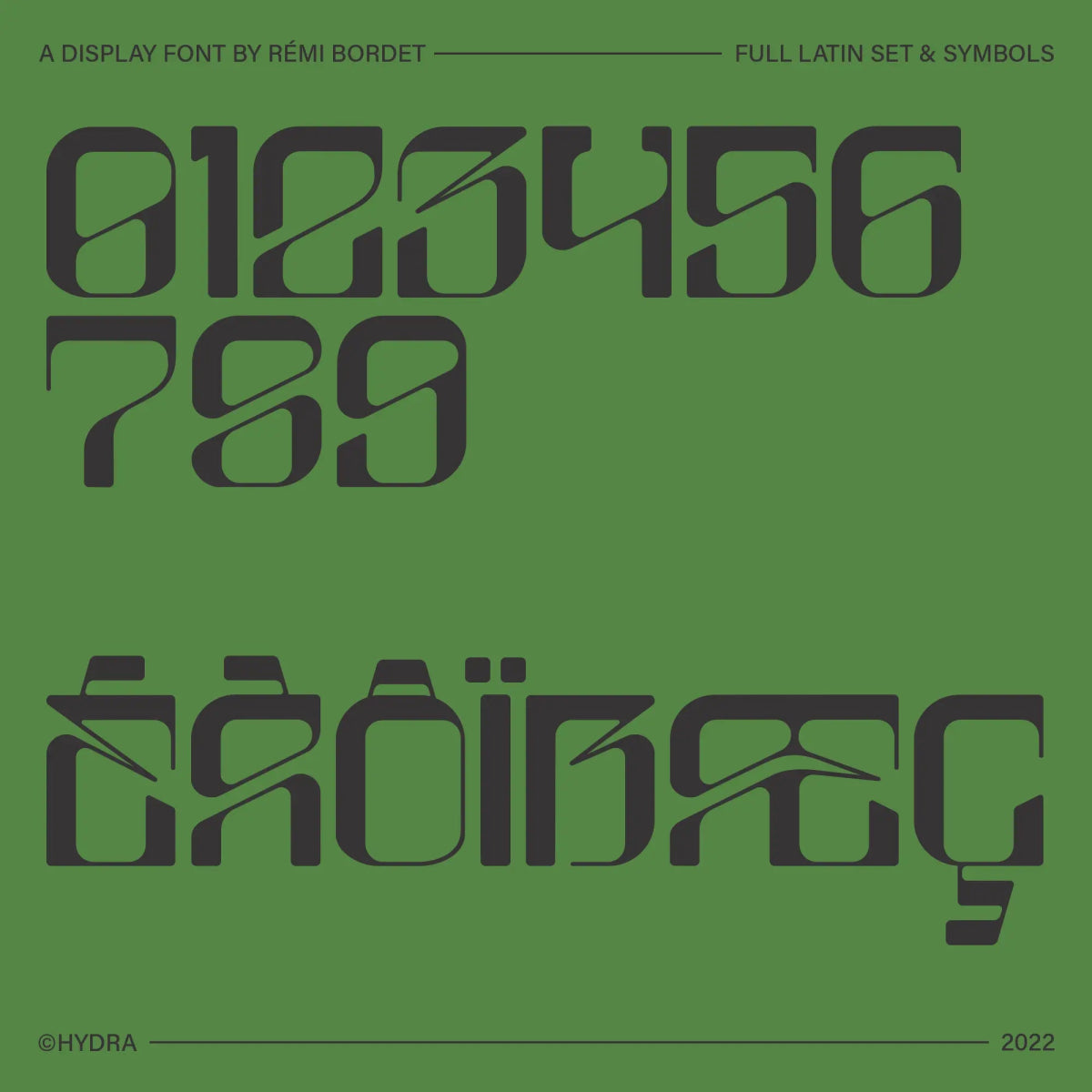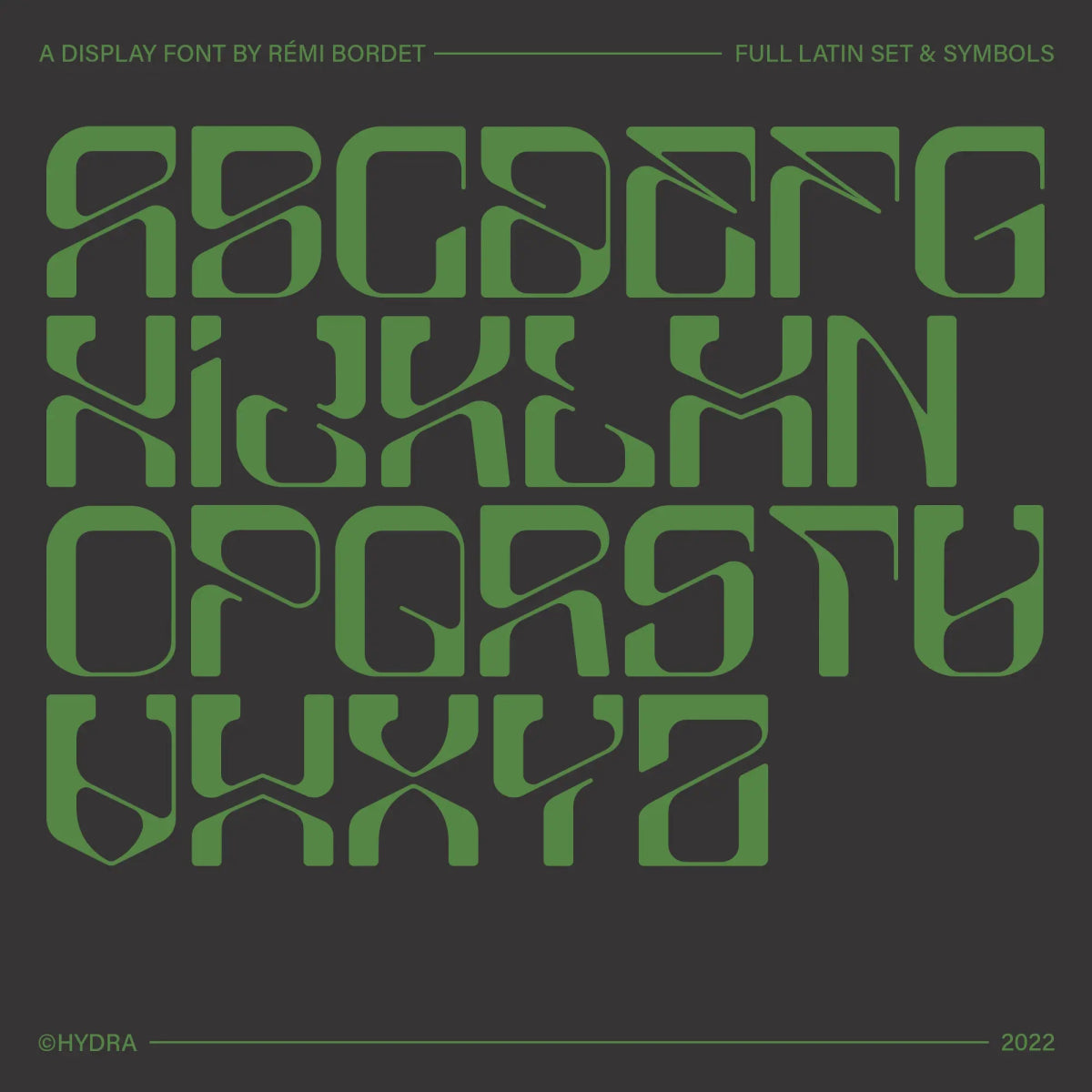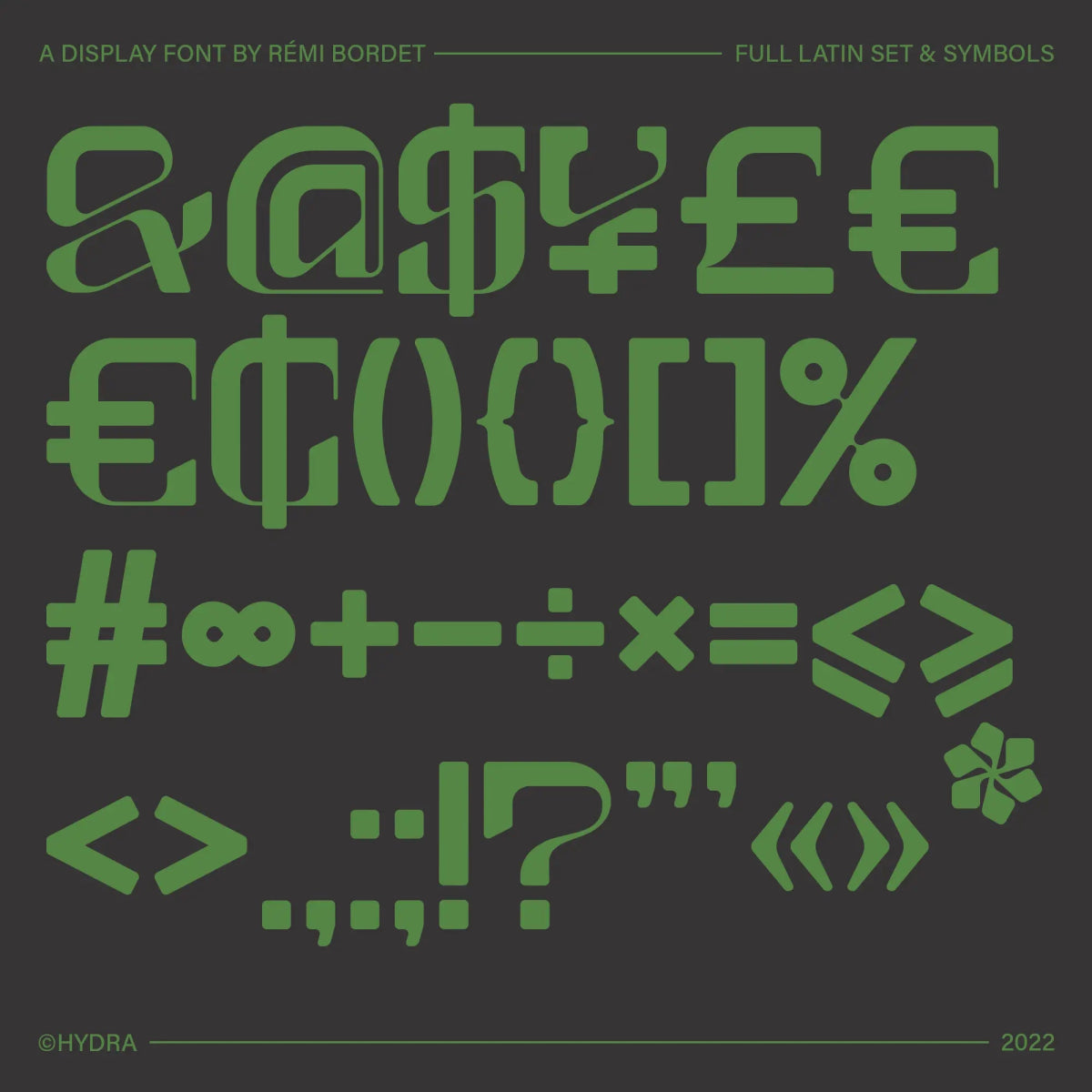
Hydra Display Font
by Rémi Bordet
Hydra is a cutting-edge display font with a modular, cyber-organic style. Its sharp forms, geometric symmetry, and sci-fi curves make it ideal for tech branding, gaming titles, experimental posters, and dystopian interfaces.
Font Features
• Full uppercase Latin alphabet
• Full set of numbers 0-9
• Symbols & punctuation
Rémi Bordet
Rémi Bordet is a french graphic and type designer and artist who creates bold, minimalist posters combining impactful imagery and typography. His work highlights contradictions, both aesthetically and symbolically speaking, through stylistic visual metaphors that blend brutalist aesthetics with emotional depth.